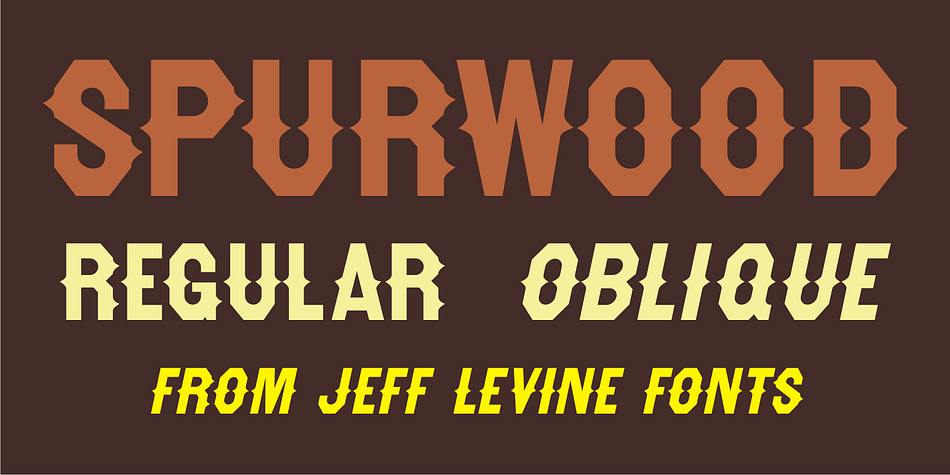
Designed by Jeff Levine, Spurwood JNL is a western and wood type font family. This typeface has two styles and was published by Jeff Levine Fonts.
The wood type lettering which was the inspiration for Hayfork JNL has been given a spurred treatment, and is now available as Spurwood JNL in both regular and oblique versions.